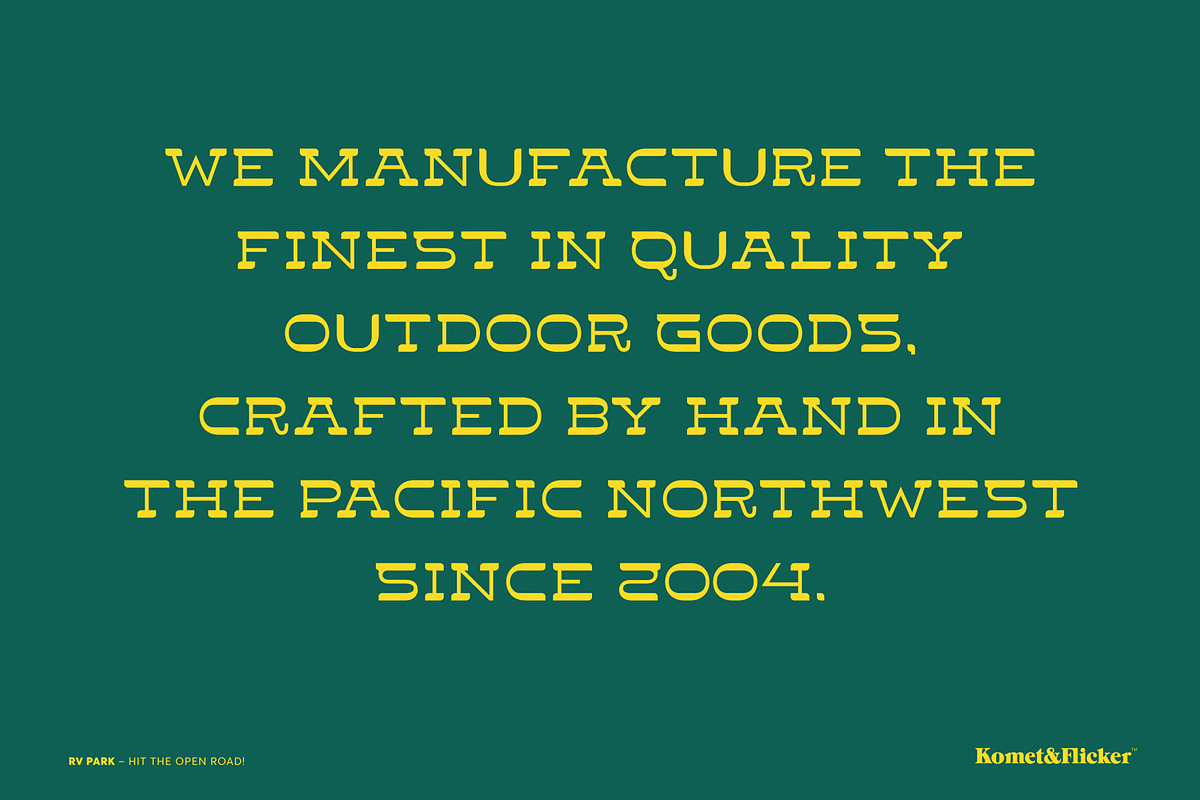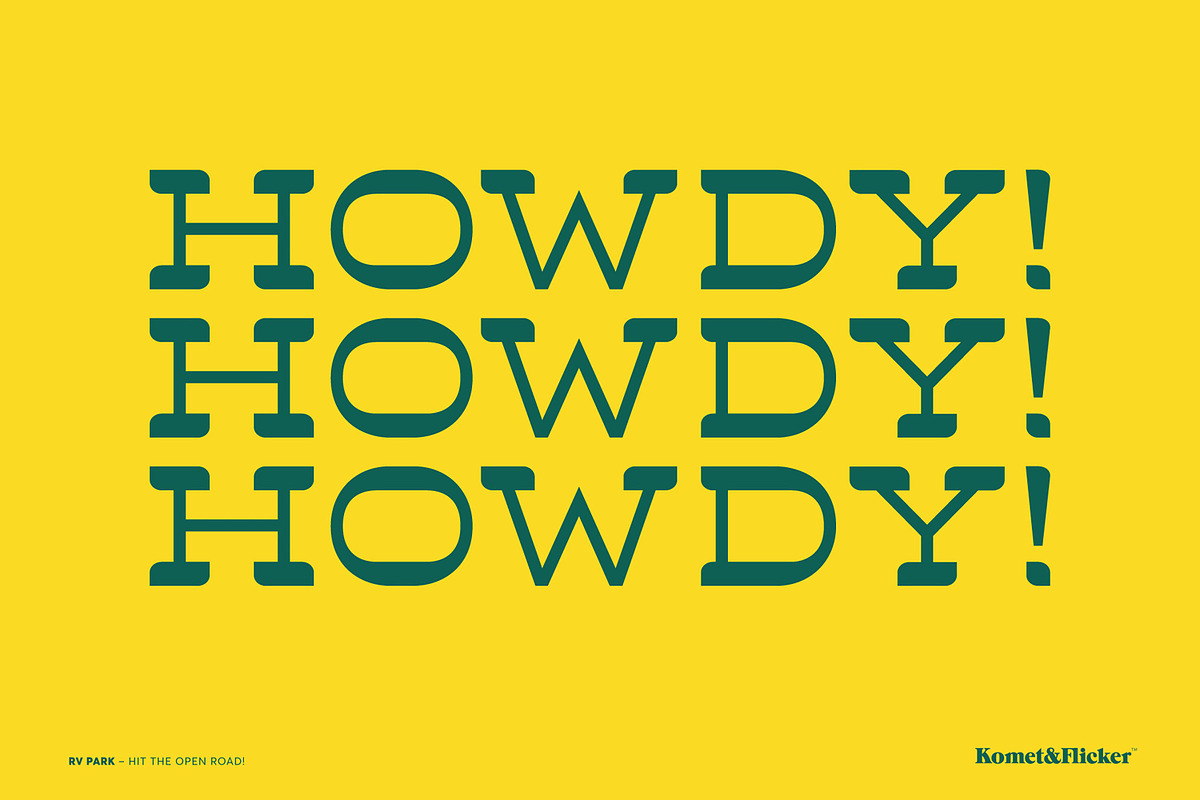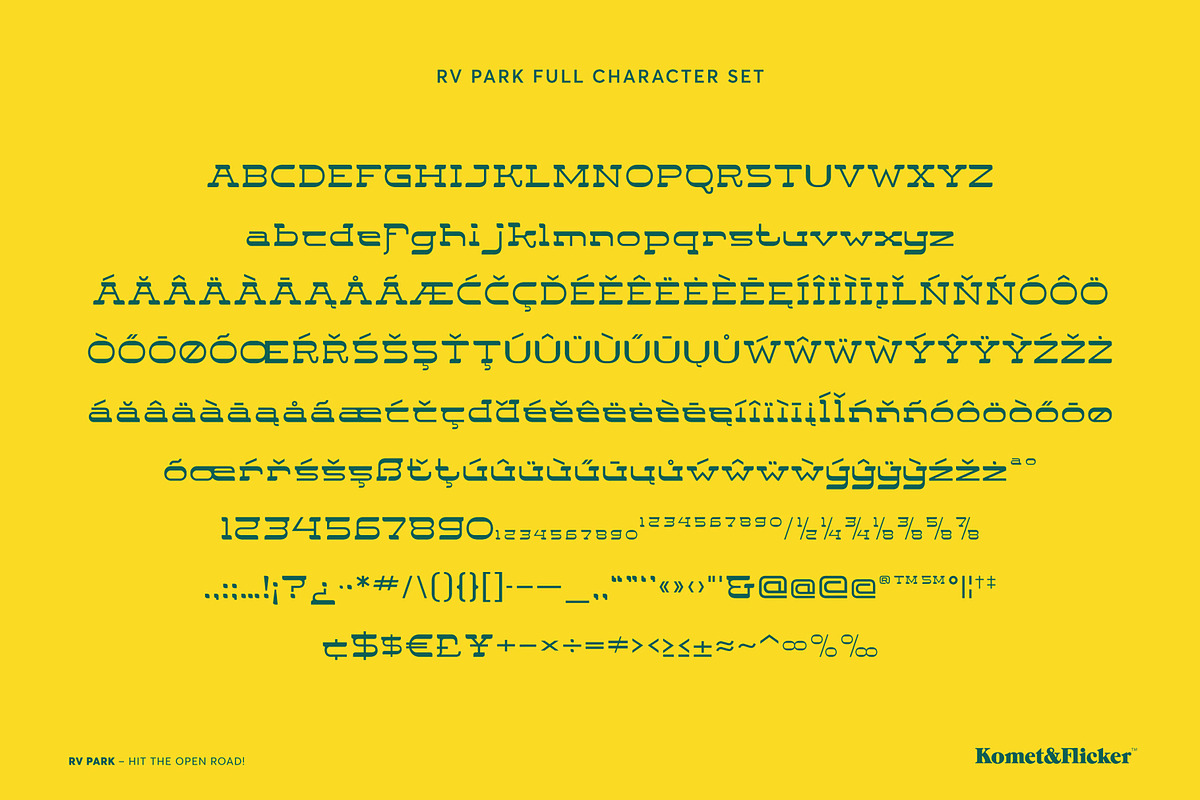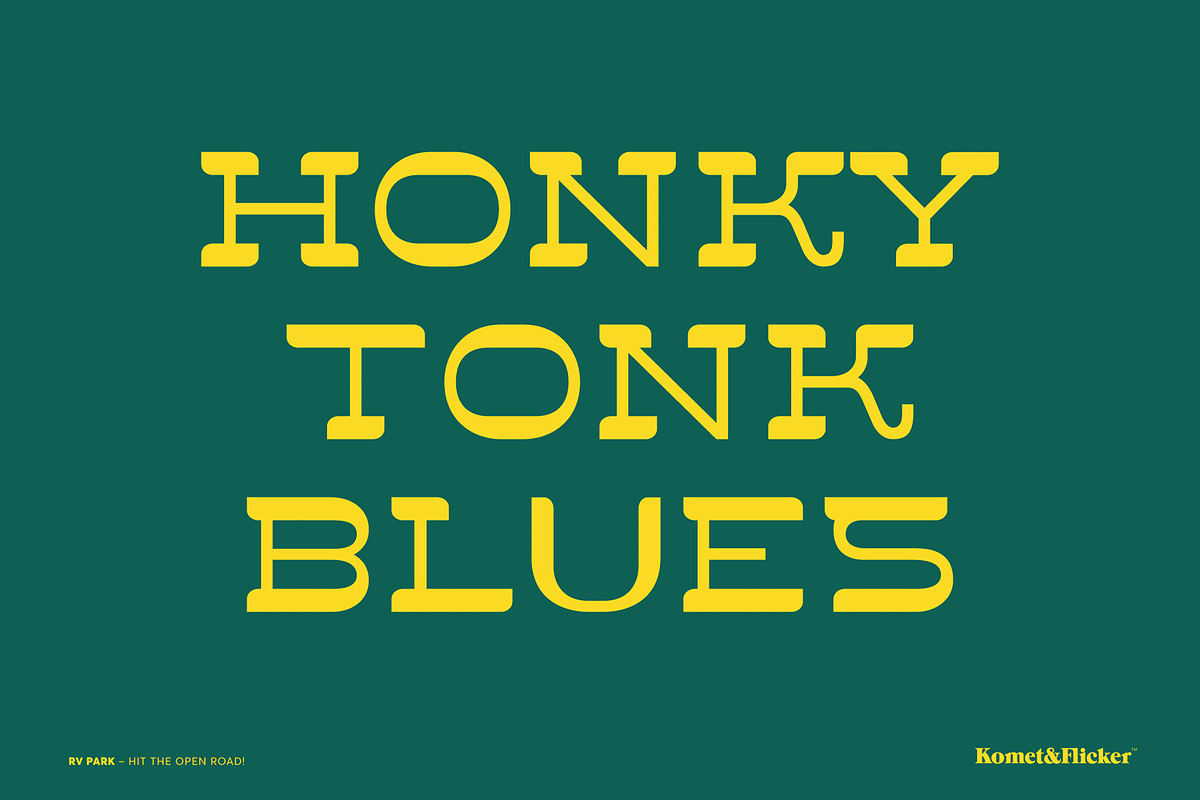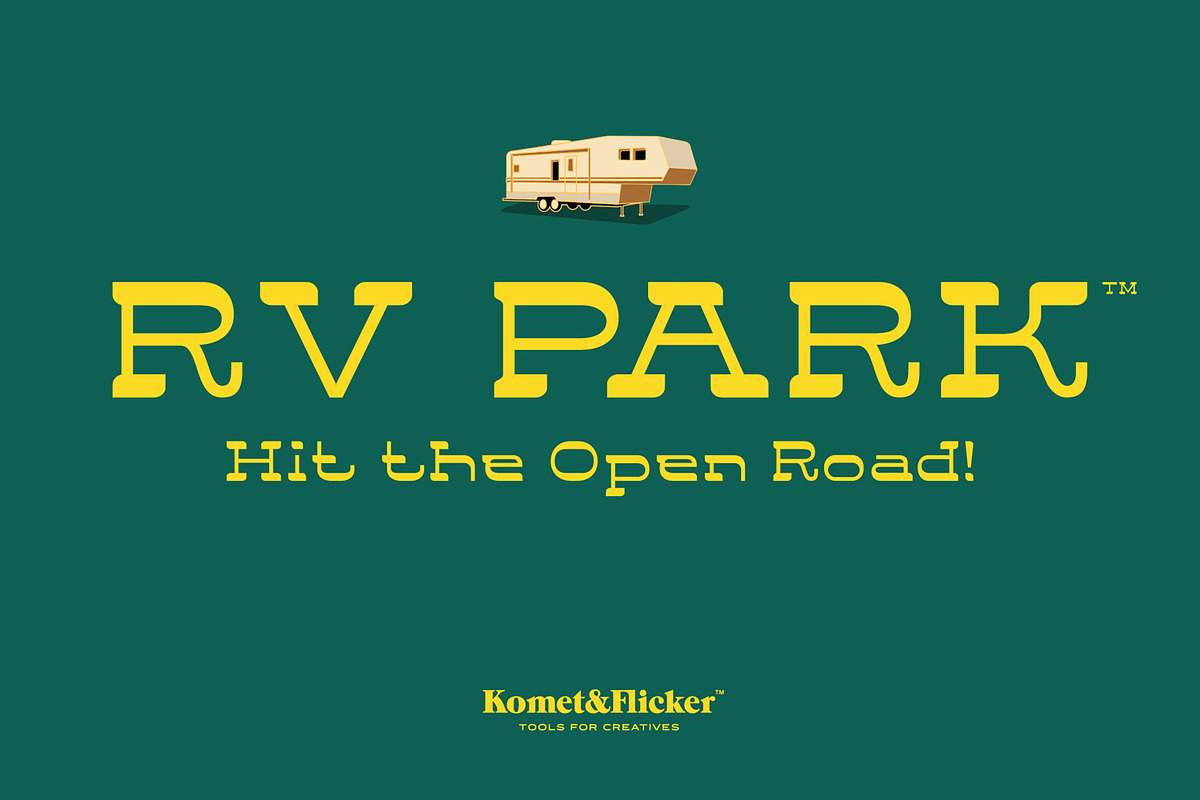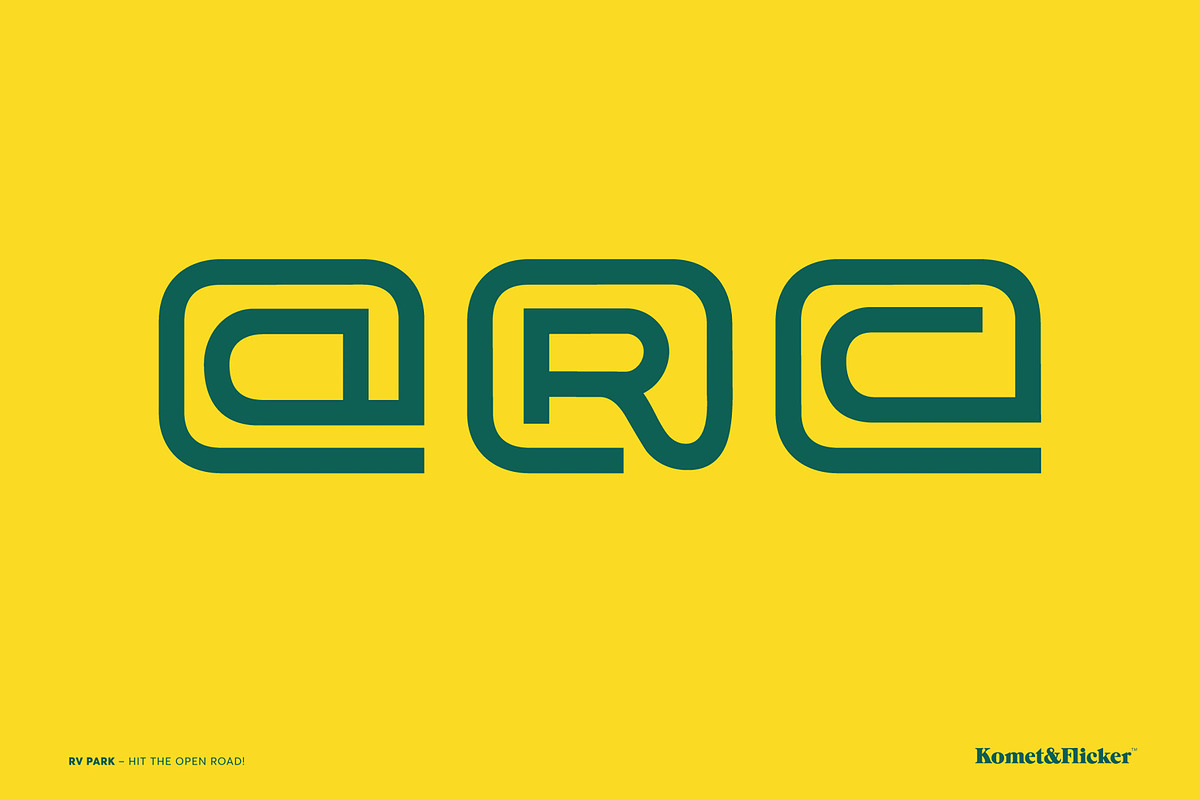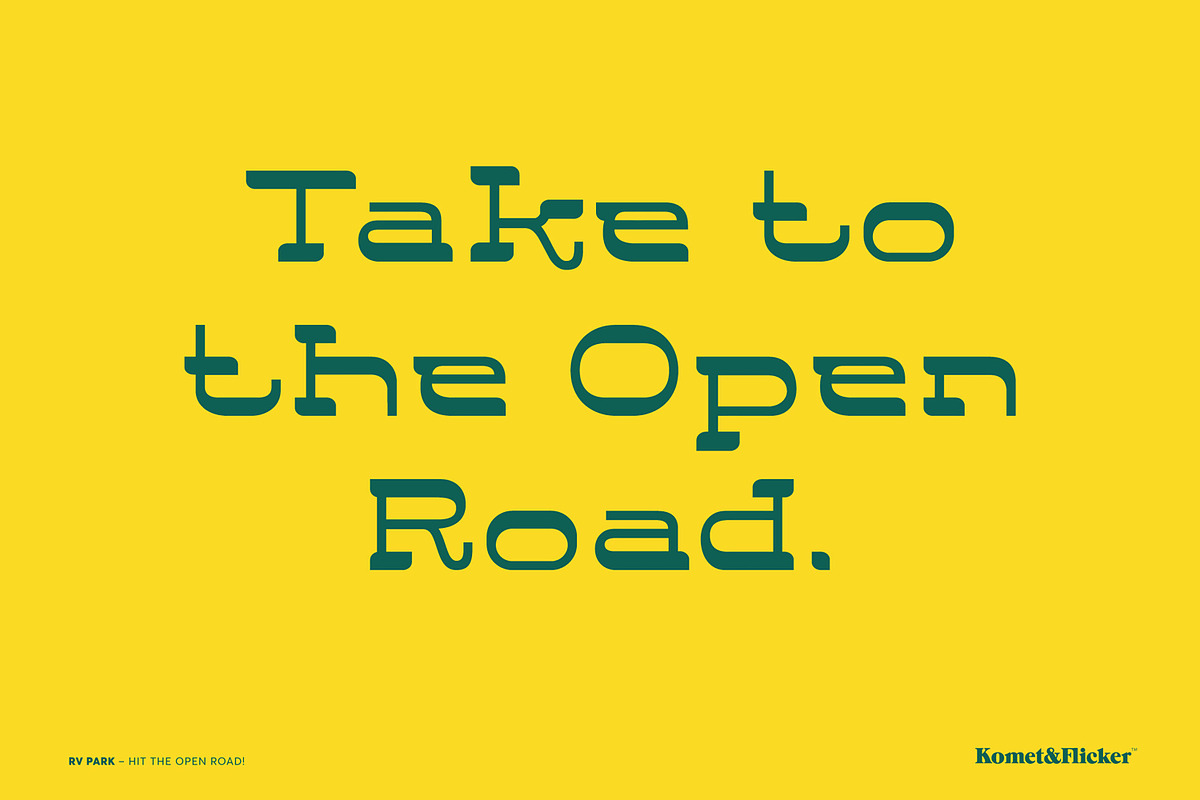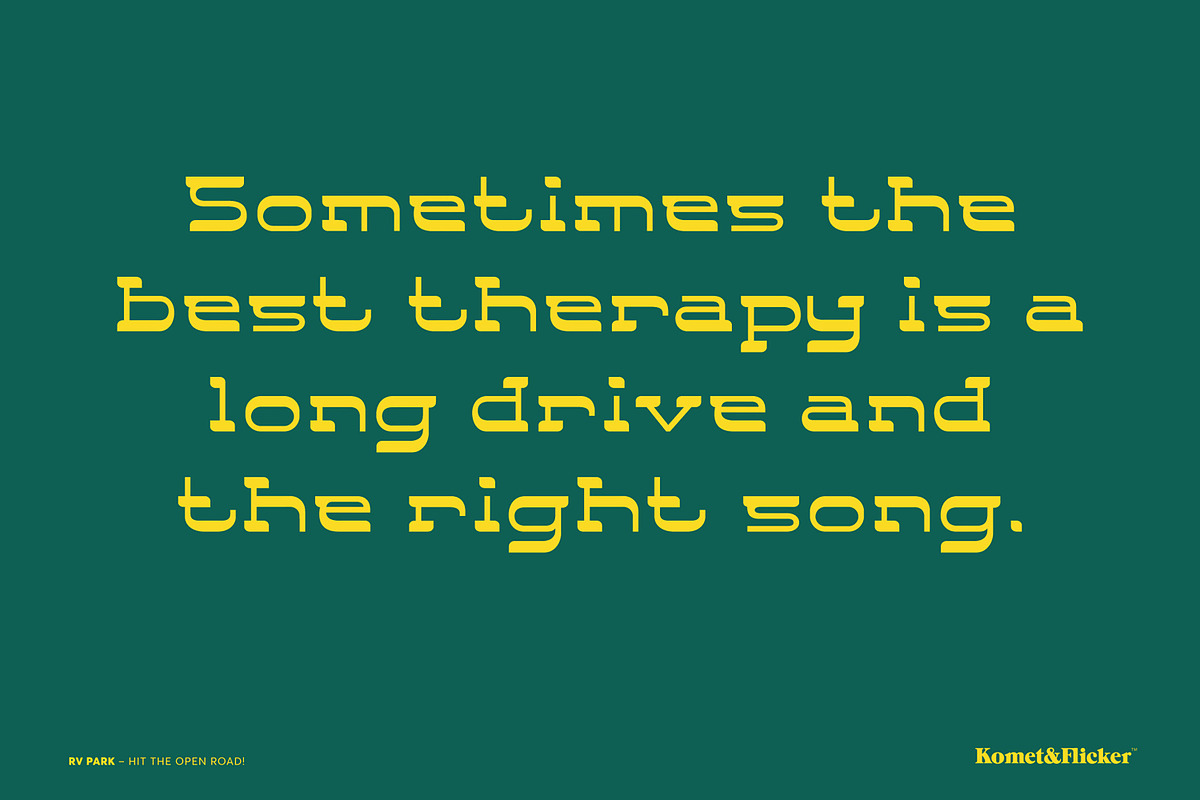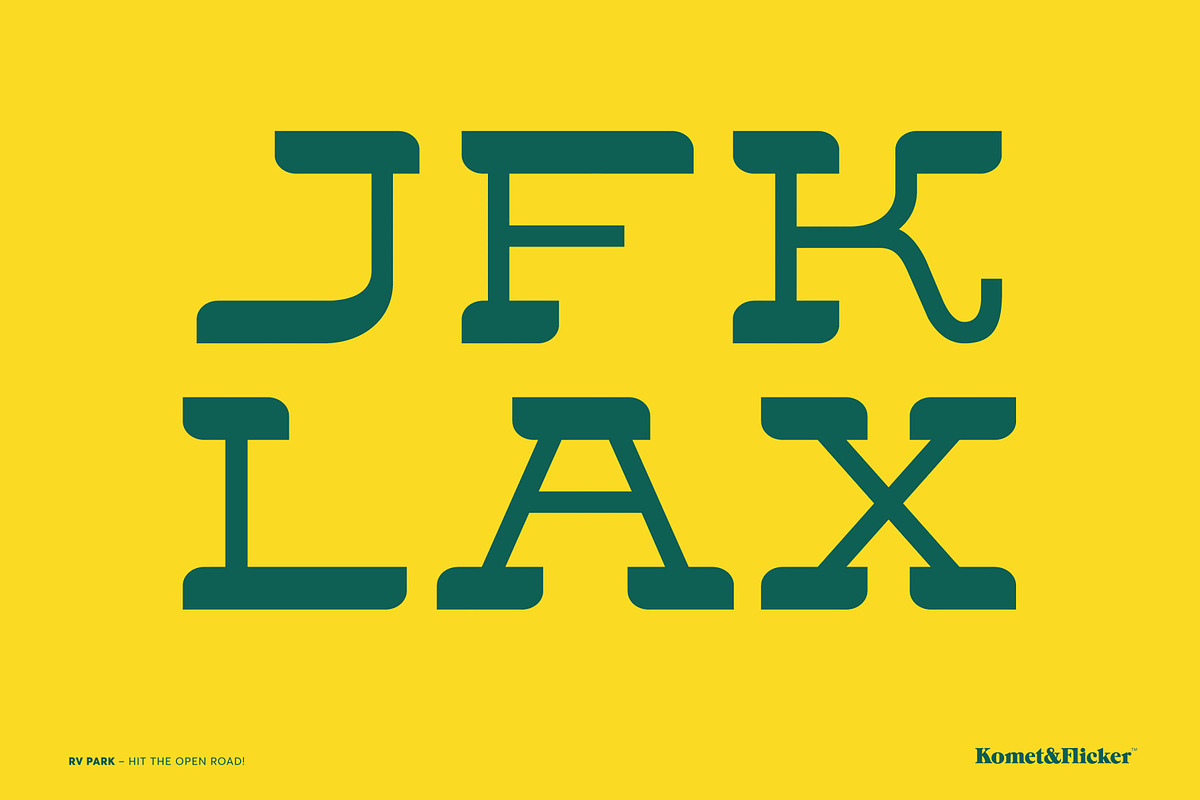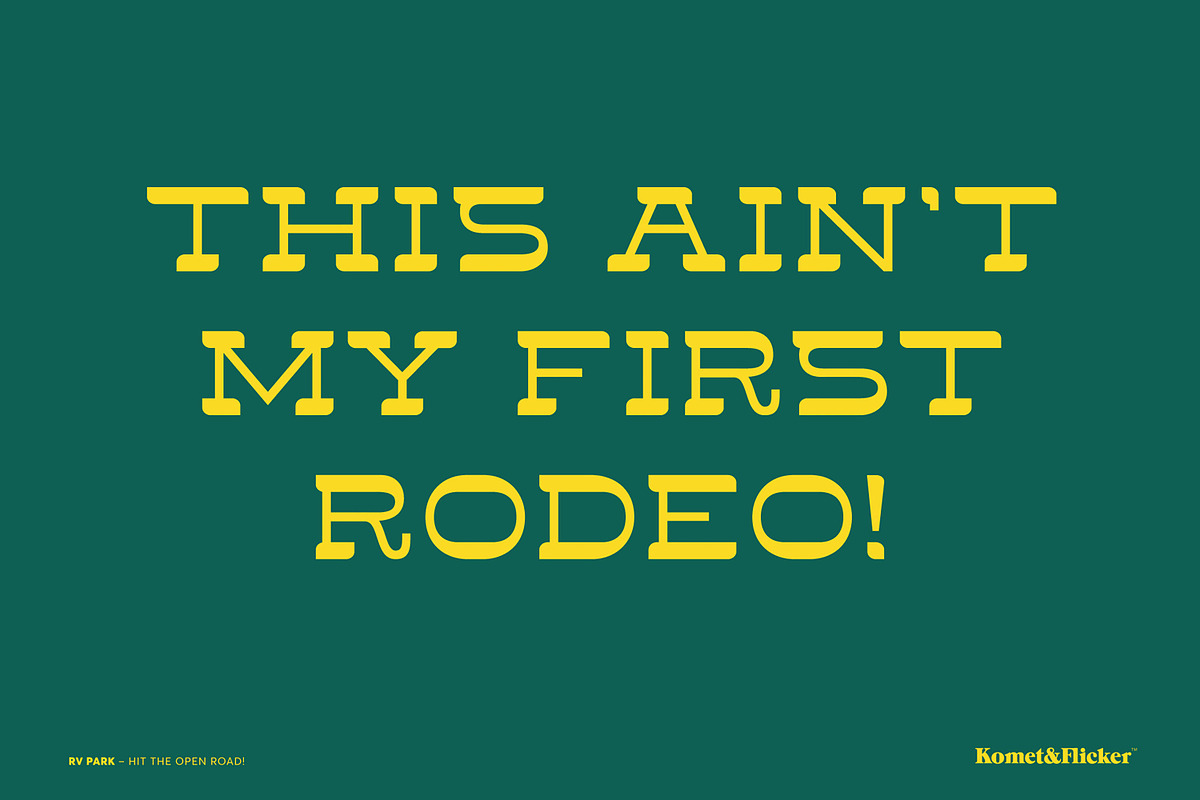
RV Park - Hit the Open Road!
Hit the open road with the whimsical charm of RV Park, a playful display font inspired by the typography found on signage at quirky roadside attractions. This eye-catching typeface captures the spirit of adventure, evoking nostalgia for summer road trips and the freedom of the open highway.
RV Park features bold, rounded letters that bring a sense of fun and warmth to any design project. Perfect for travel-themed posters, retro diner menus, or playful branding, its unique character effortlessly draws attention and sparks curiosity. Each letter is crafted to evoke the charm of vintage roadside motels and the quirky personality of beloved attractions, making it ideal for anything from promotional materials to personal projects.
Whether you’re creating a lively invitation, a nostalgic travel blog, or an engaging storefront sign, RV Park adds a touch of whimsy and personality. Embrace the journey and let RV Park guide your designs down the scenic route!
THIS FONT INCLUDES
- Full A-Z uppercase and lowercase basic latin characters
- Select Western & Central European specific characters
- Numbers, punctuation, and select symbols